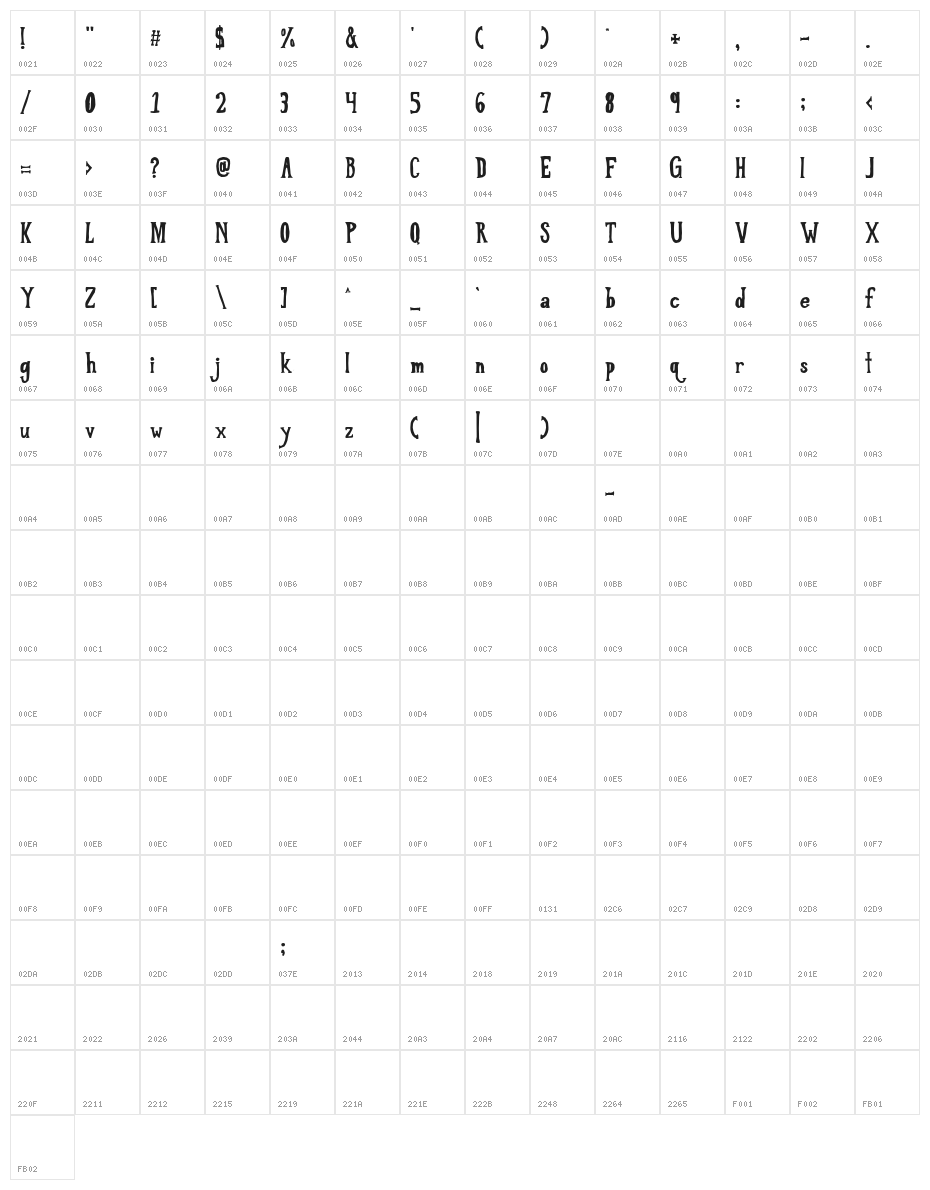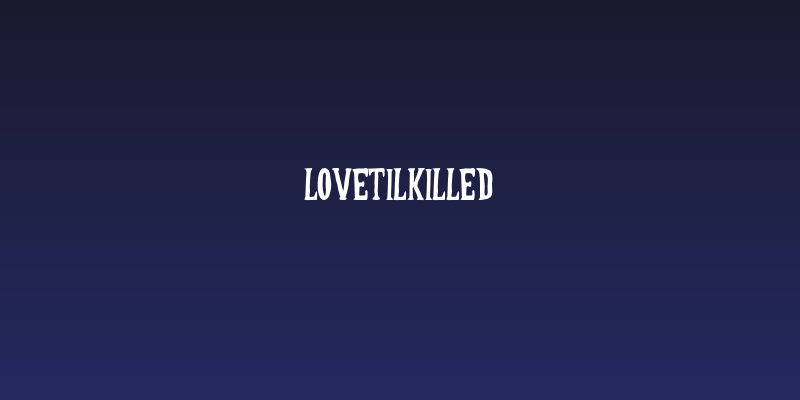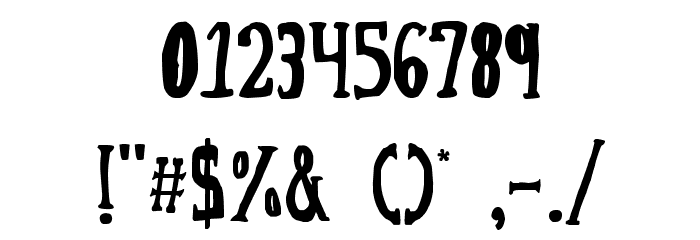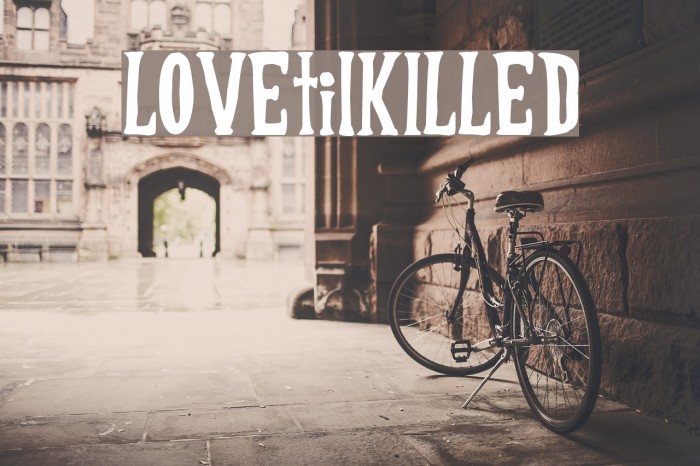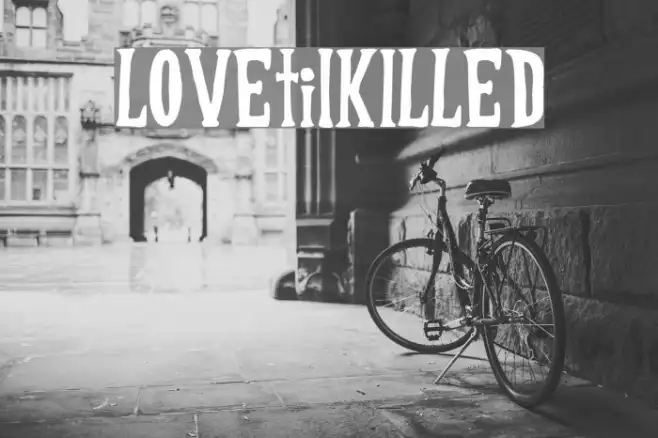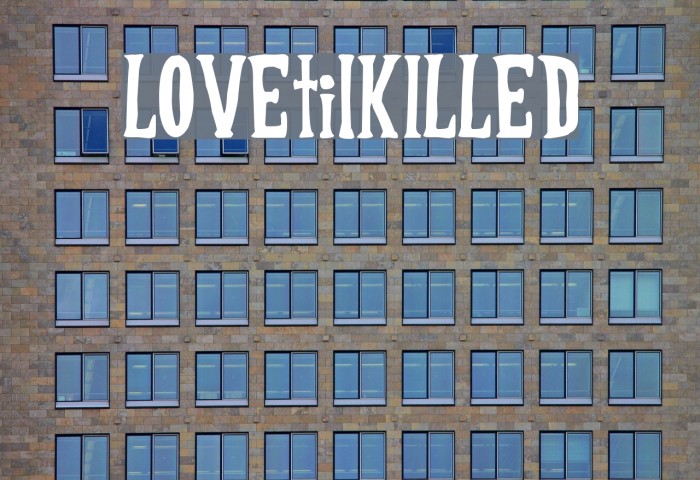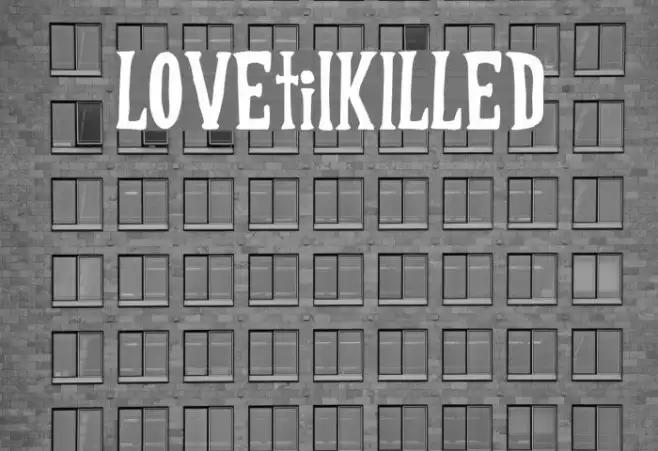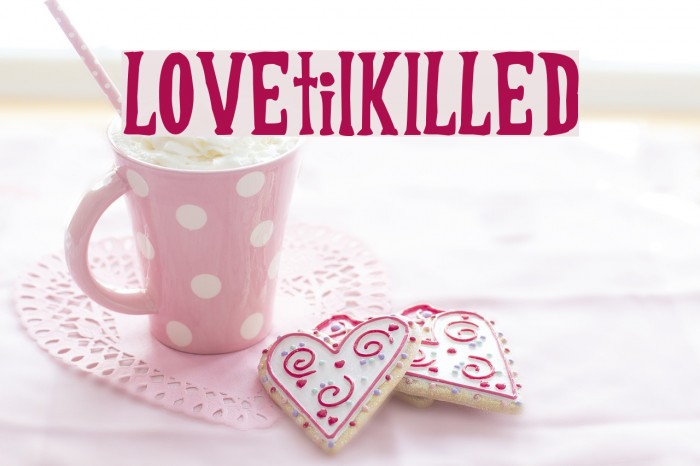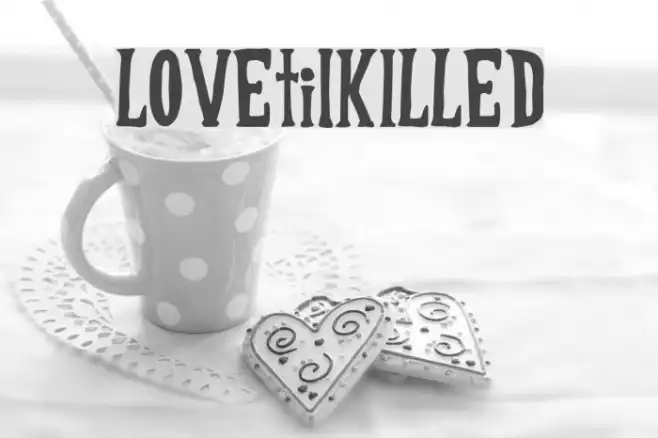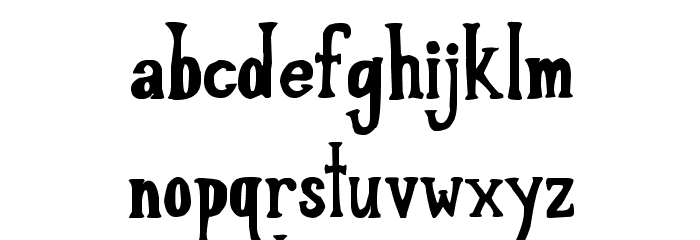
LOVEtilKILLED Font
LOVEtilKILLED Description
This font features a bold and playful style with a hand-drawn appearance. The letters have a slightly irregular shape, giving them a whimsical and artistic feel. The uppercase characters are tall and slightly narrow, while the lowercase letters maintain a consistent height with a quirky touch. Numbers are bold and easily readable, matching the overall playful theme. Special characters are creatively designed, adding to the font's unique personality. The font's organic and lively style makes it suitable for projects that require a fun and engaging look.
| Overall Style | Playful, Artistic |
| Proposed Projects | Ideal for children's books, posters, greeting cards, and playful branding. |